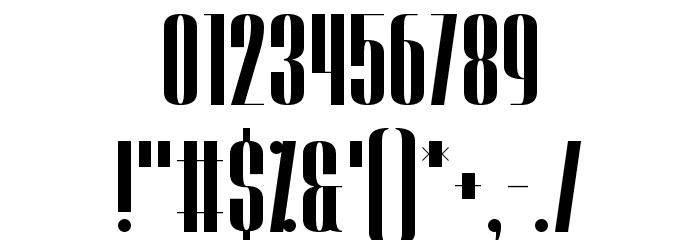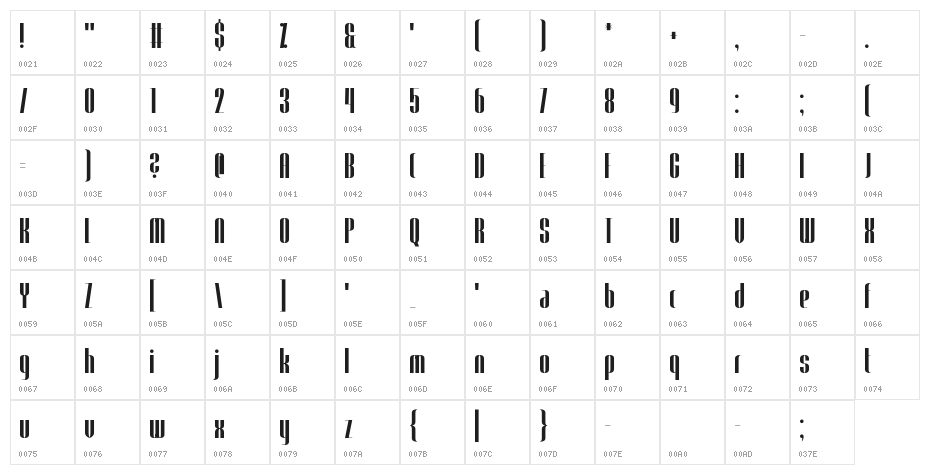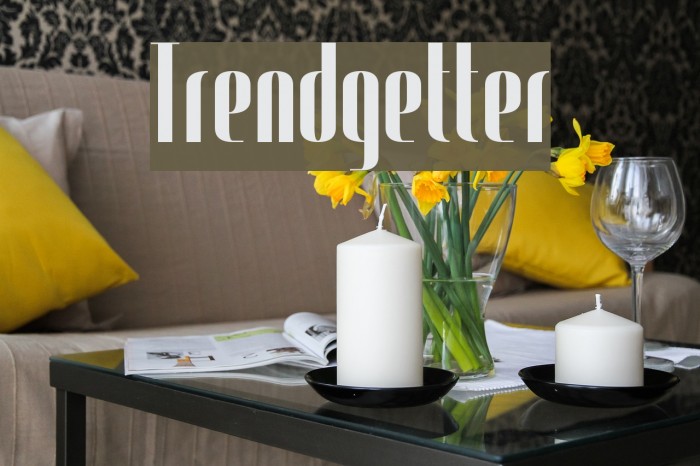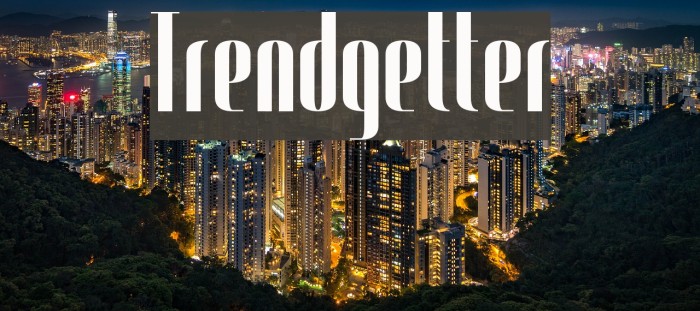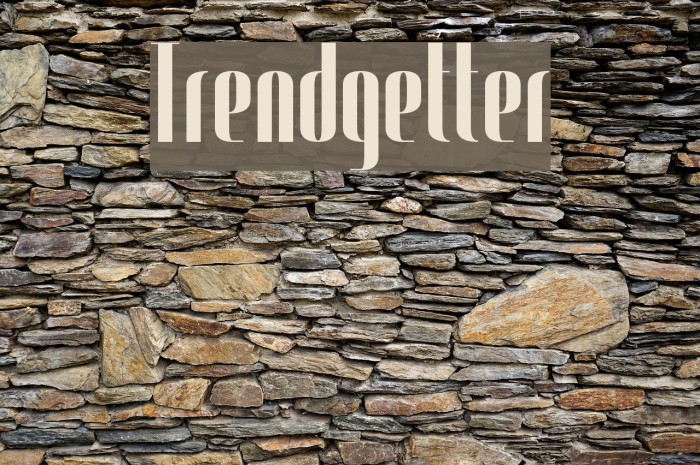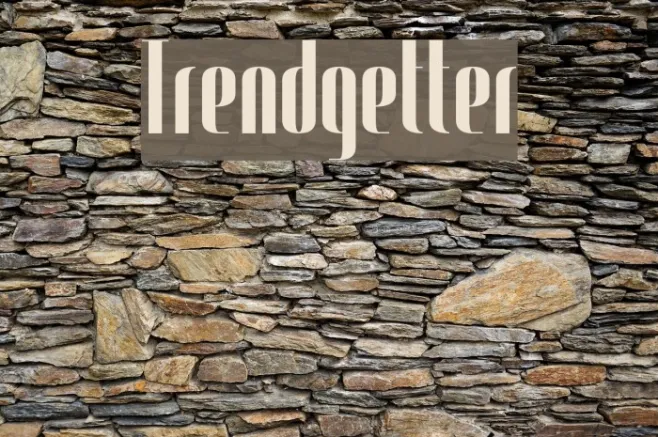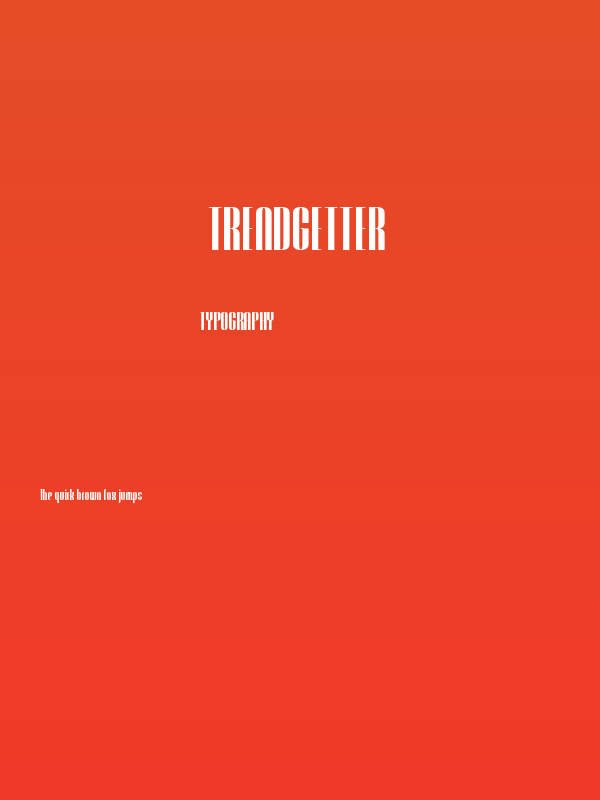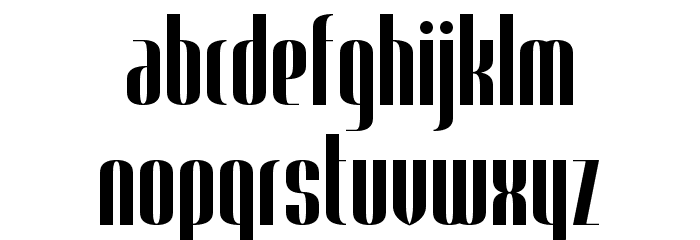
Trendgetter Font
Trendgetter Description
This font exhibits a bold and striking appearance with its tall, narrow letterforms and high contrast between thick and thin strokes. The uppercase letters are particularly elongated, giving a sense of grandeur and elegance. The lowercase letters maintain the same vertical emphasis, creating a cohesive look throughout. The numerals are consistent with the overall style, featuring the same verticality and contrast. Special characters are designed to match the boldness and elegance of the alphabet, making this font suitable for attention-grabbing headlines and titles. Its unique style is both modern and reminiscent of vintage typography, making it versatile for various design projects.
| Overall Style | Modern, Vintage |
| Proposed Projects | Ideal for fashion magazines, luxury branding, poster designs, and editorial headlines. |